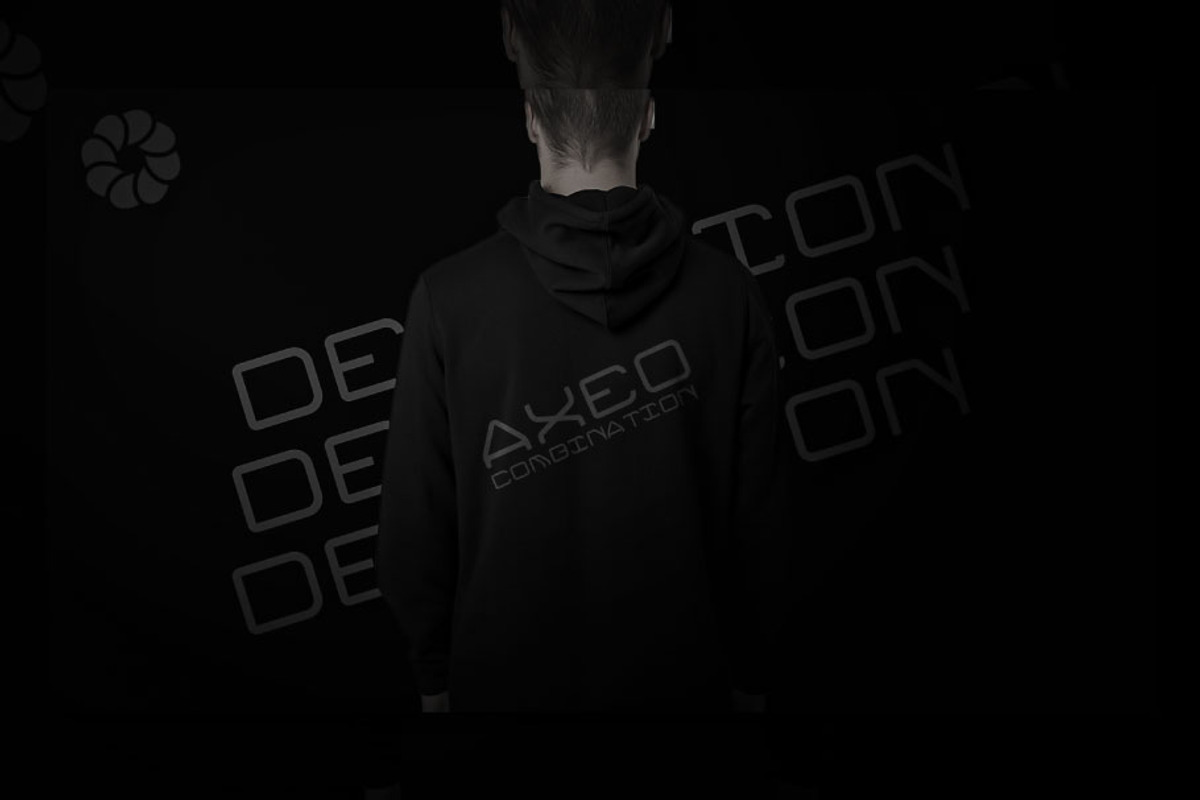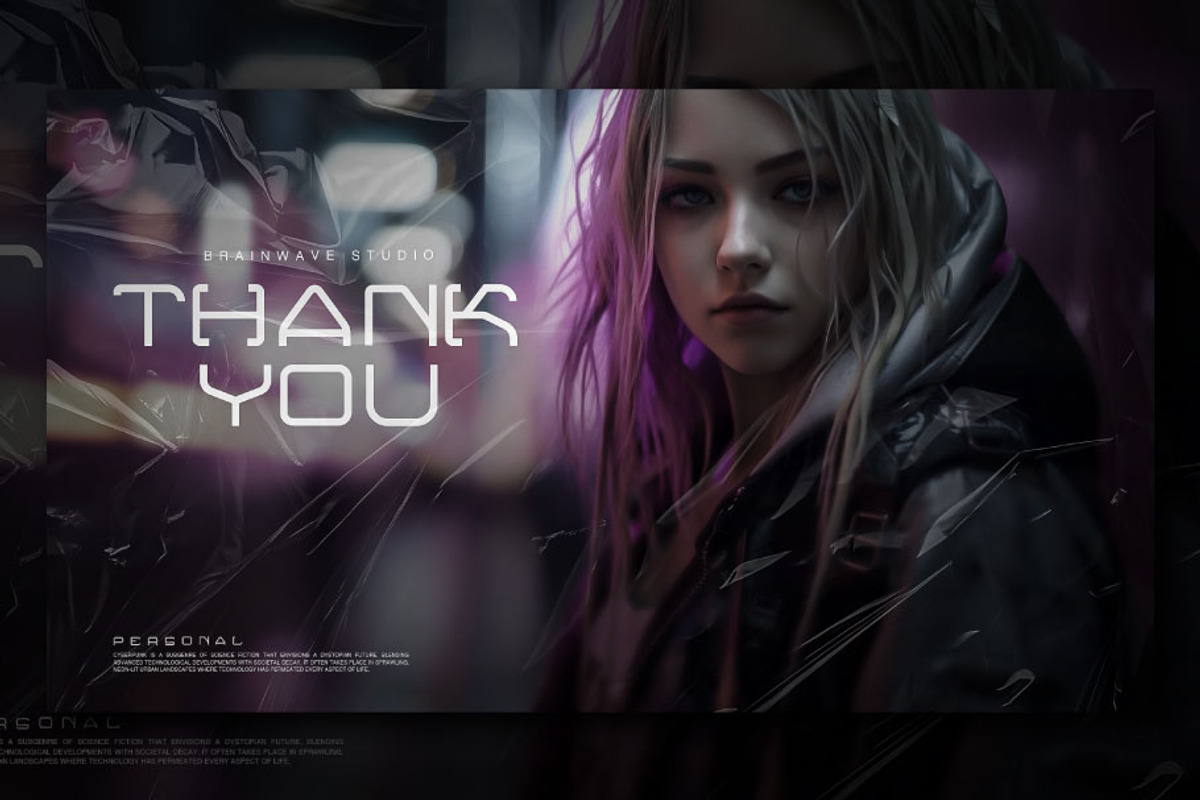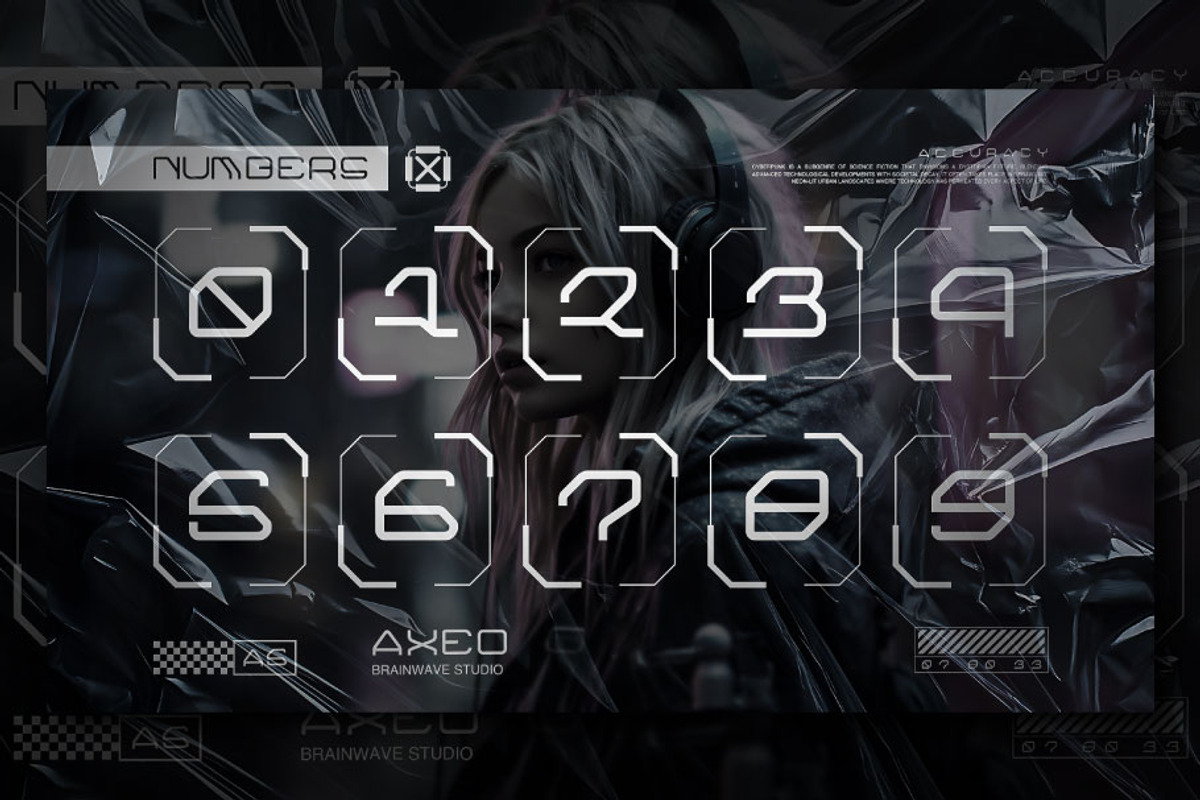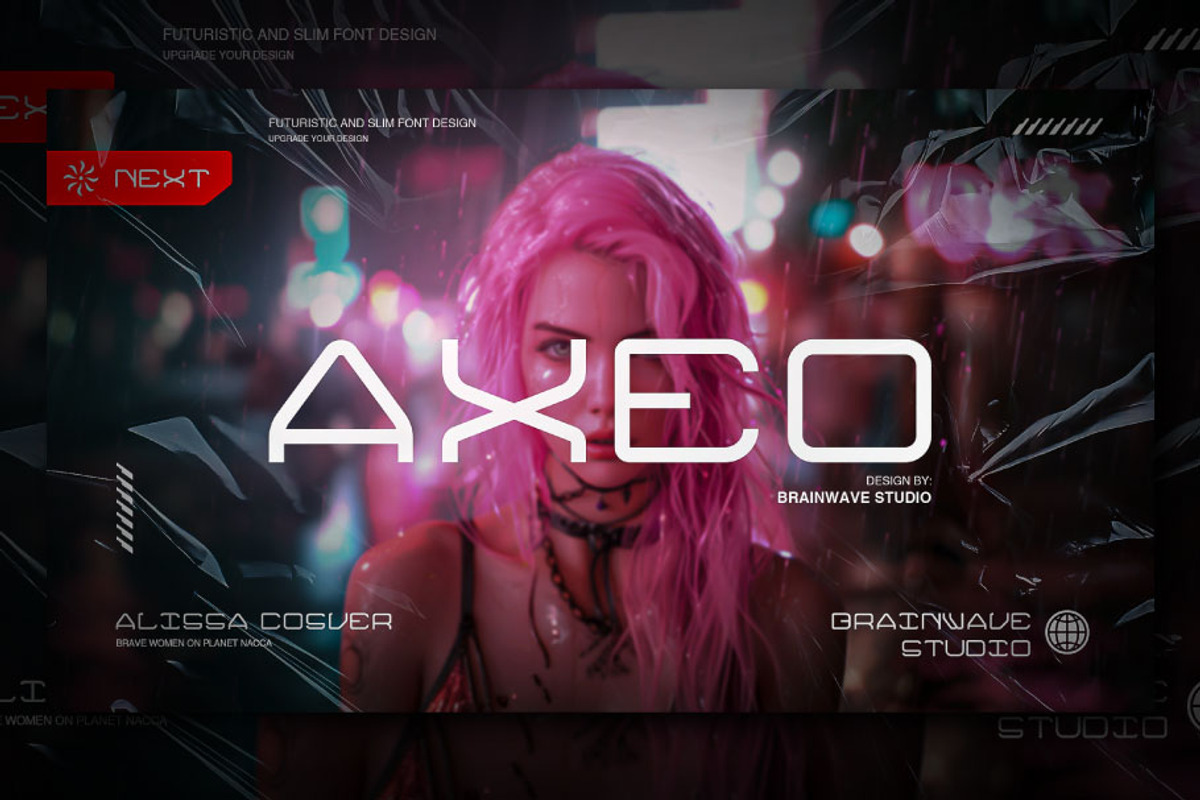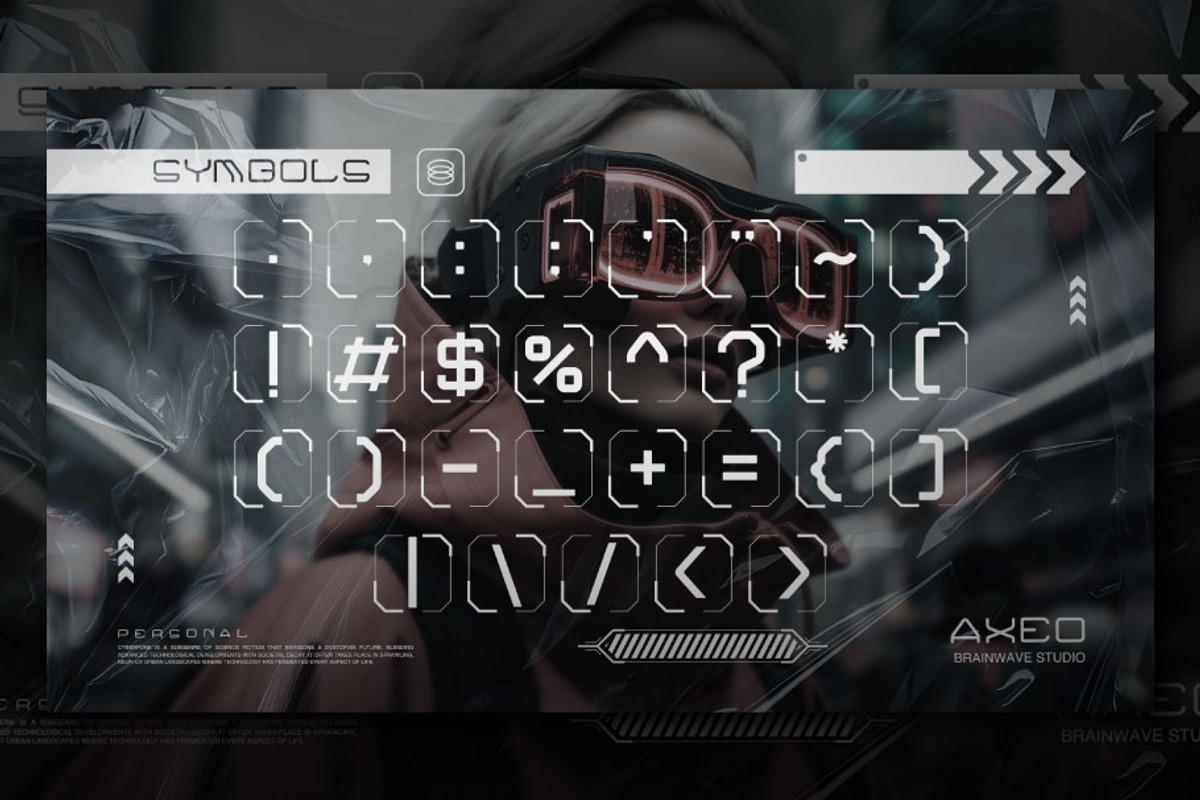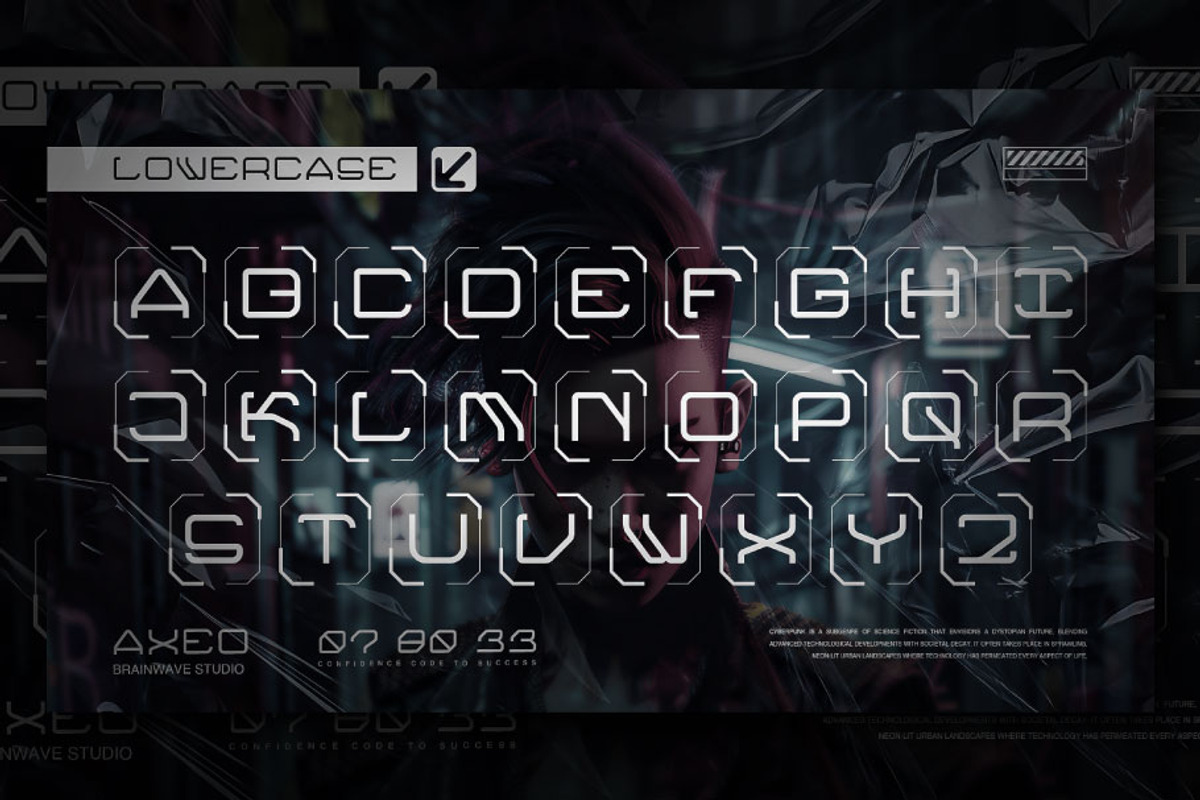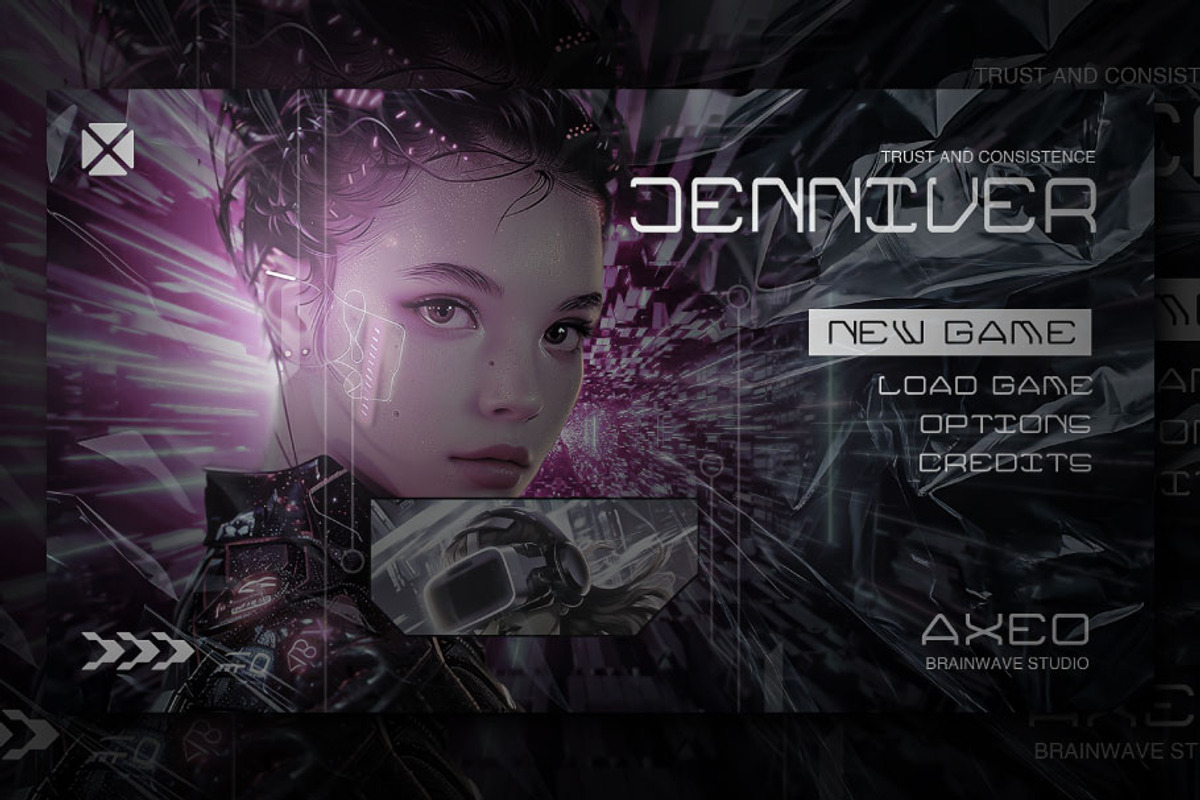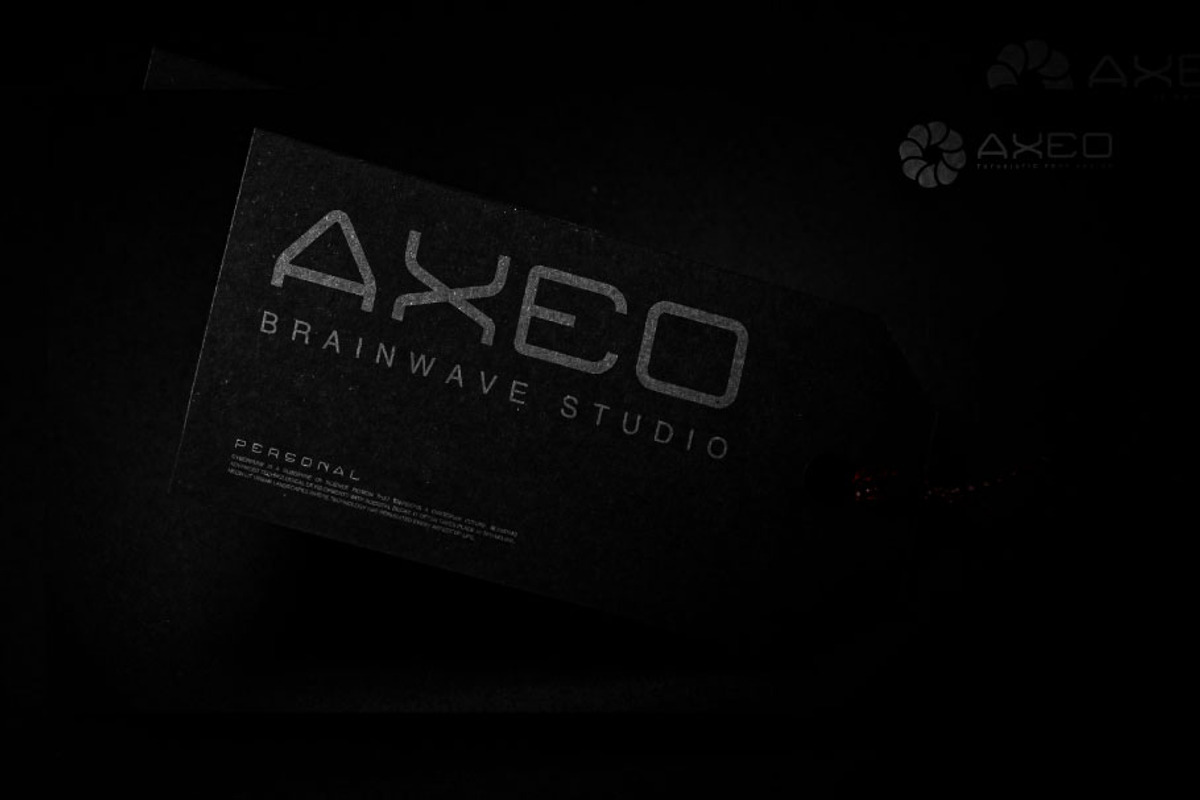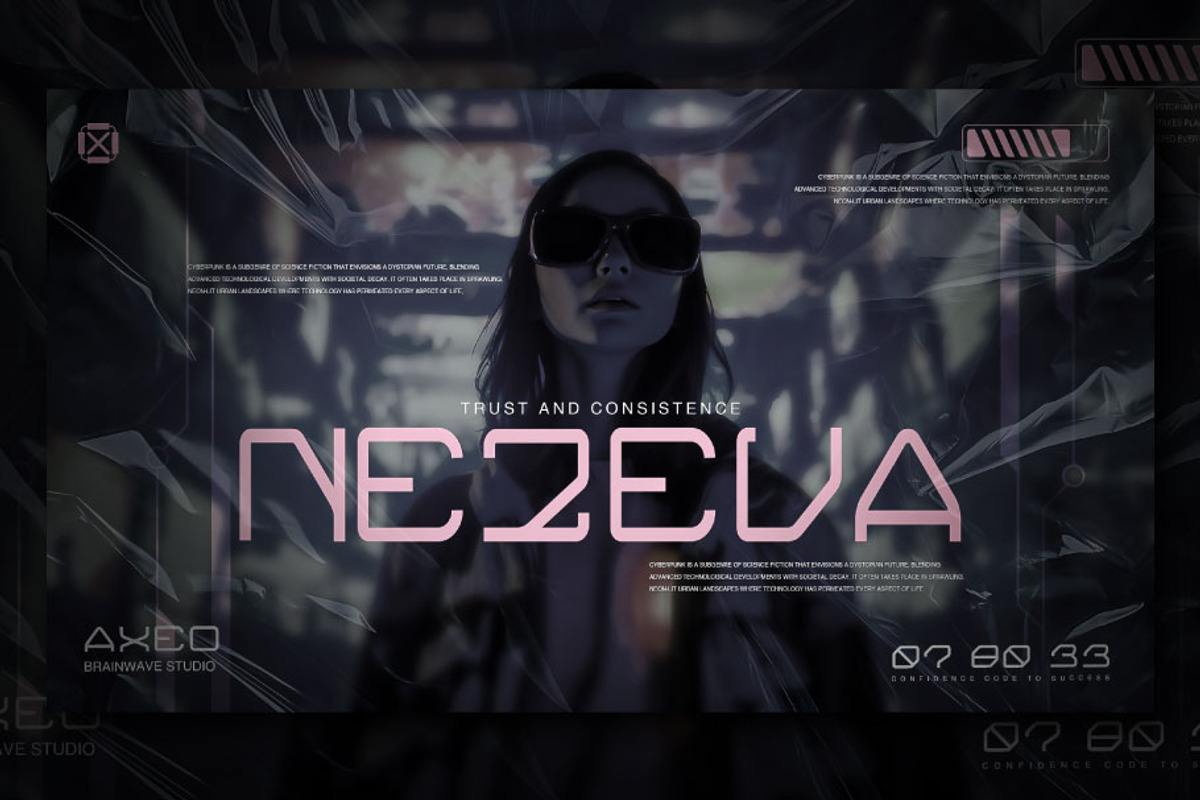
AXEO - Futuristic and Slim Font
AXEO is a futuristic and slim font design is not just a style—it's a bold statement about the direction of design in the digital age. This type of font often features clean, minimalist lines with a sense of openness and efficiency. Its characteristics are designed to evoke a sense of the future, where technology, innovation, and progress are central themes.